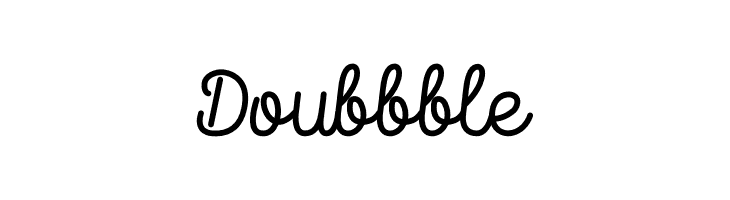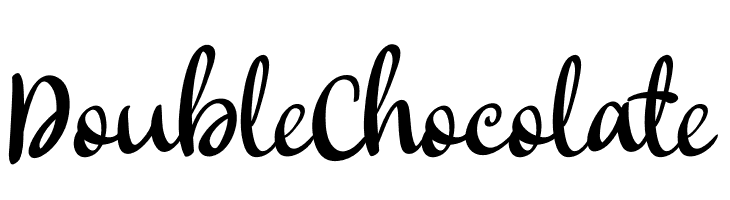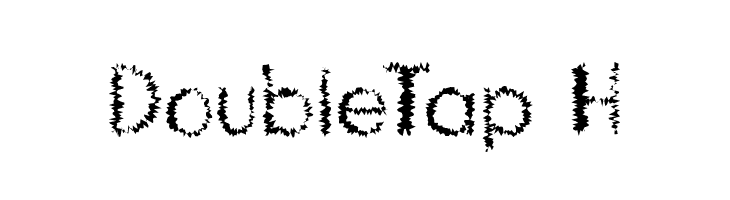
A playful, flowing script font with interconnected letters and a cohesive style.
A bold, expressive handwritten font with fluid strokes and a modern flair.
A bold, geometric font with sharp angles and a modern, assertive style.
A playful, modern font with bold, dynamic shapes and artistic flair.
A bold, jagged font with an energetic, explosive style.
An ornate and decorative font with intricate swirls and flourishes.
An ornate and decorative font with intricate swirls and loops.
A bold, geometric font with a futuristic and modern design.